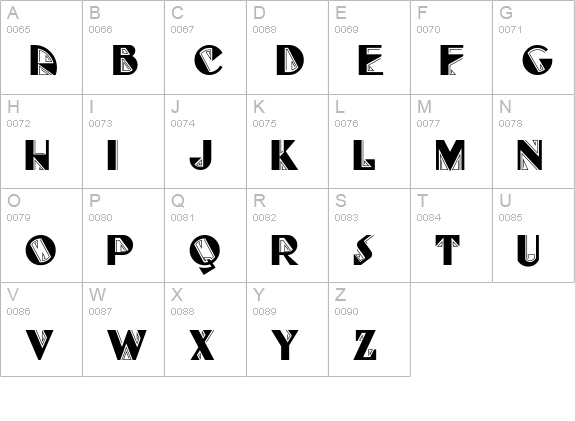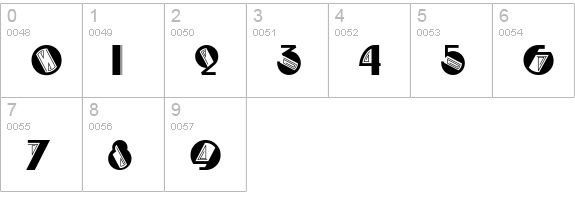
FullTiltBoogie Font Details
FullTiltBoogie font is a bold and dynamic typeface that exudes energy and modernity. With its strong lines and sharp edges, this font is perfect for making a statement in any design project. Whether you are creating a striking poster, eye-catching logo, or attention-grabbing website, FullTiltBoogie will add a touch of edginess and personality. What makes FullTiltBoogie even more appealing is that it is available for free download at FontsMarket.com. This means that you can easily access this unique font and incorporate it into your projects without any cost. Don't miss out on the opportunity to elevate your designs with the captivating FullTiltBoogie font - download it for free today!